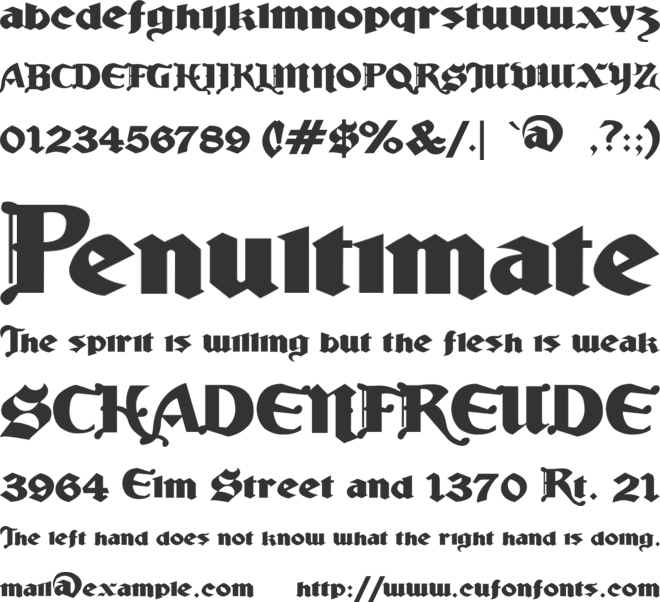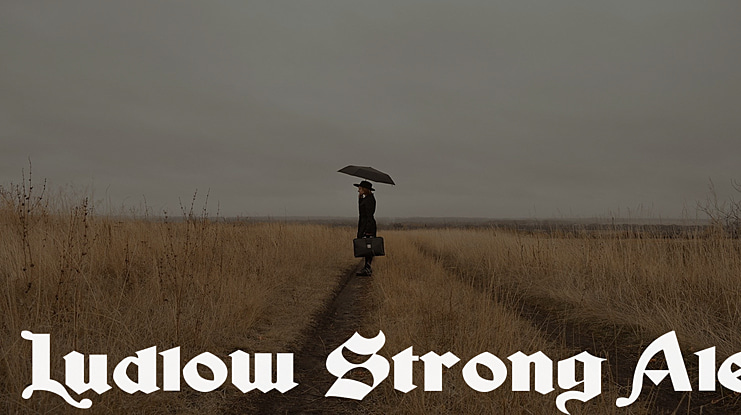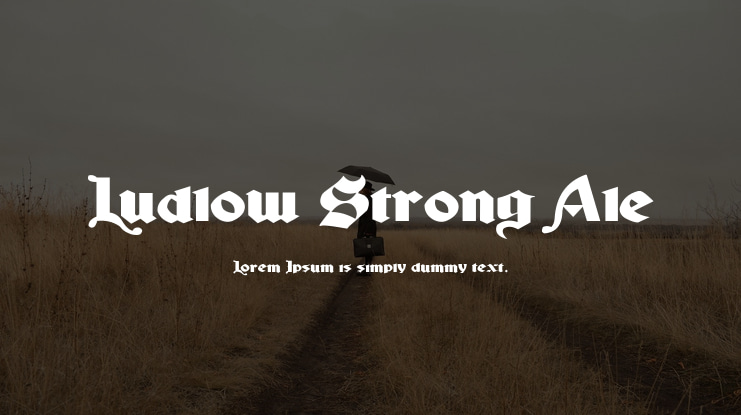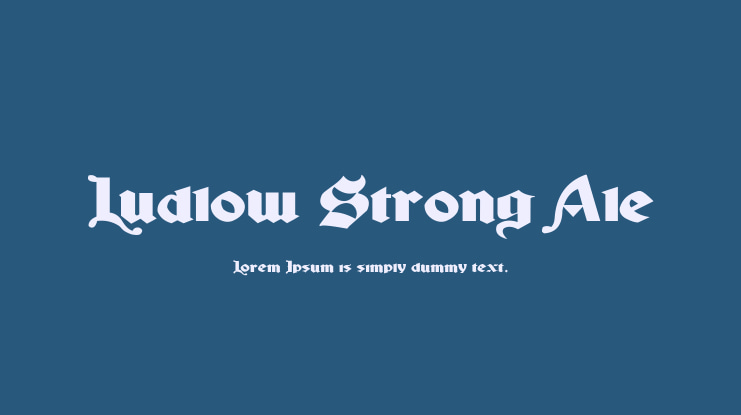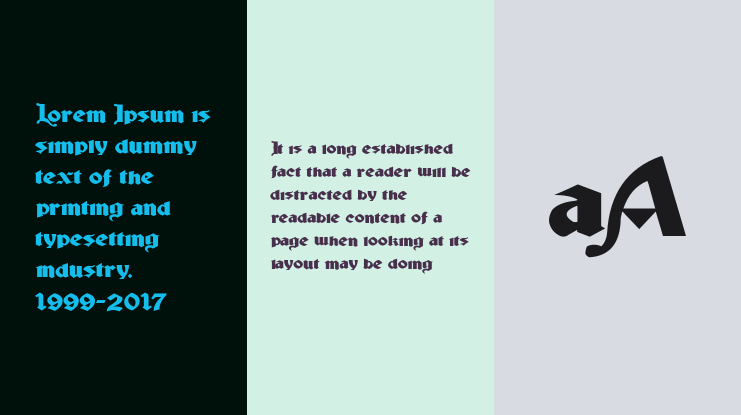
Ludlow Strong Ale Font
Hey there everyone. Here we have somewhat of a marriage between styles. Cool craft beer or Olde English? It even works in a seafood restaurant environment. My original project was
entitled King James and it was mistakedly released. This version includes kerning and a bit more punctuation. This, like some of my other fonts, is decorative and not meant for full
punctuation set. These characters will get you ornate markings: <, >, [, and ] This font is free for personal use only. For commercial use please contact me at